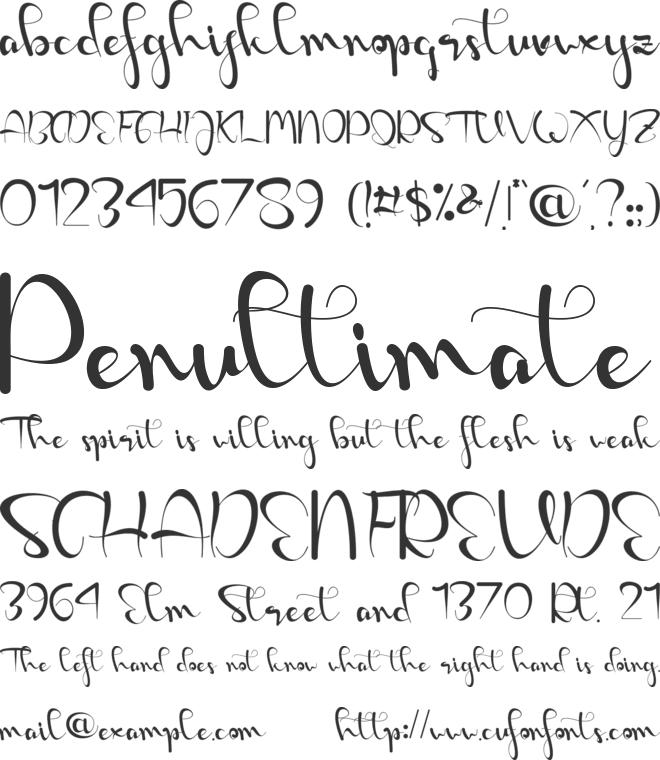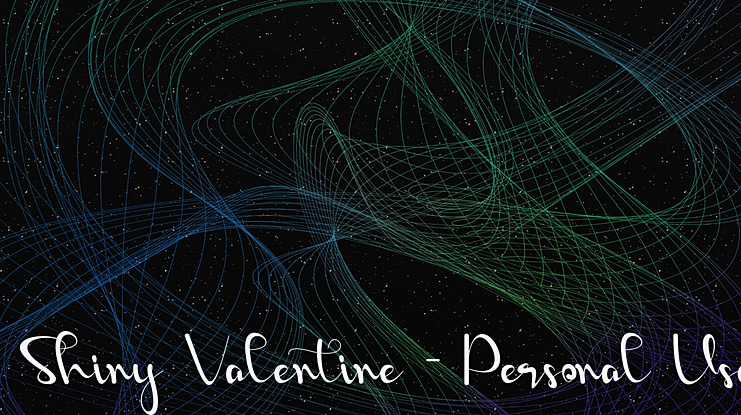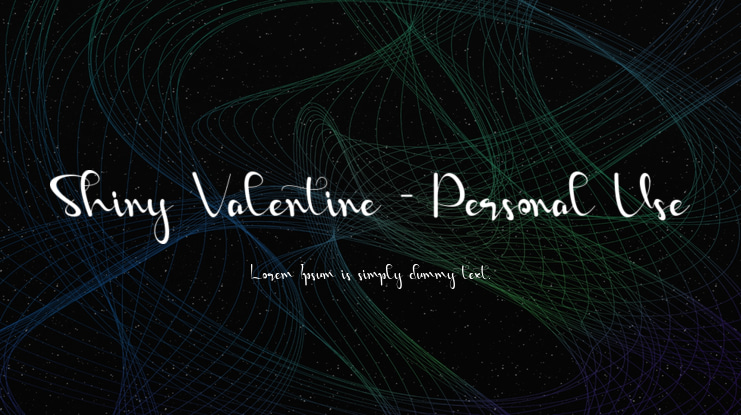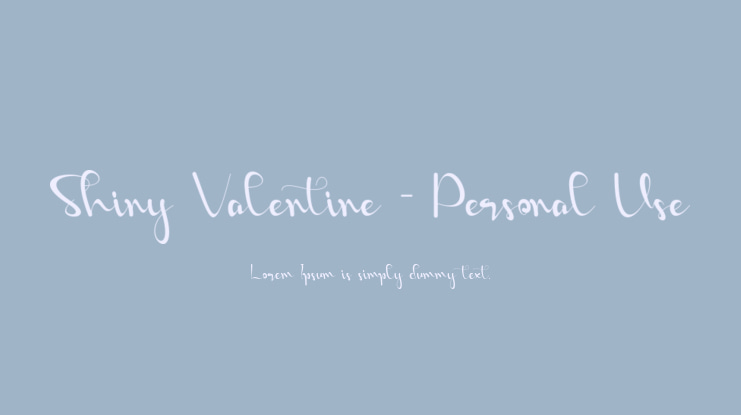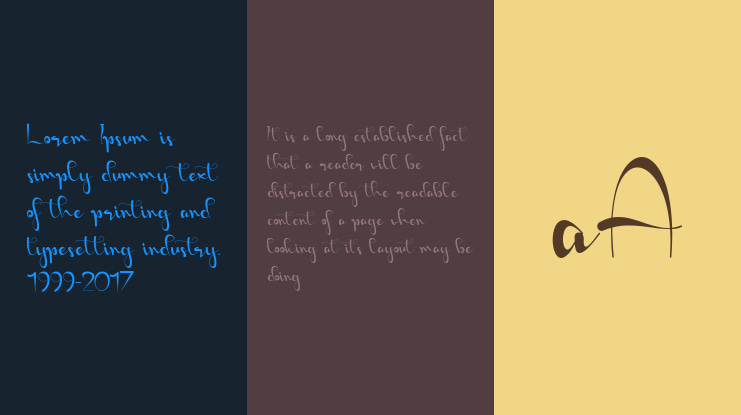
Shiny Valentine - Personal Use Font
this font is a romantic and festive handwritten font. Its natural and unique style makes it incredibly fitting to a large pool of designs. This font is PUA encoded which means you can access all of the glyphs and swashes with ease!